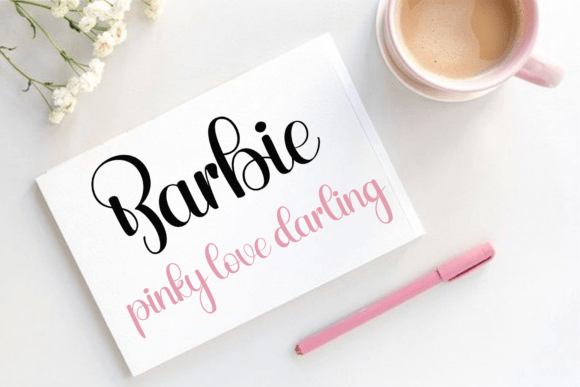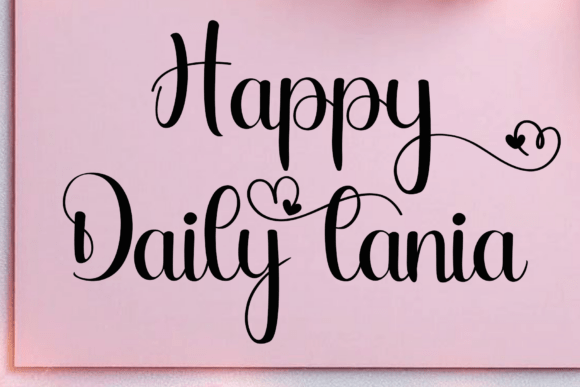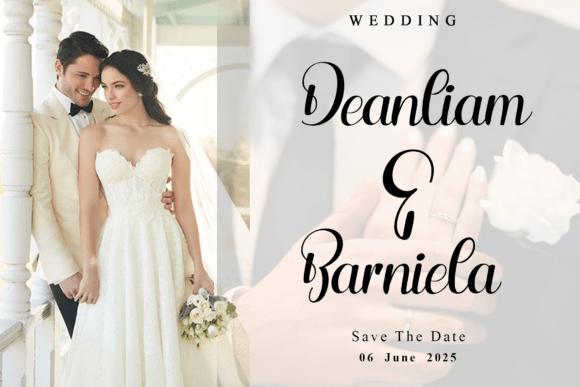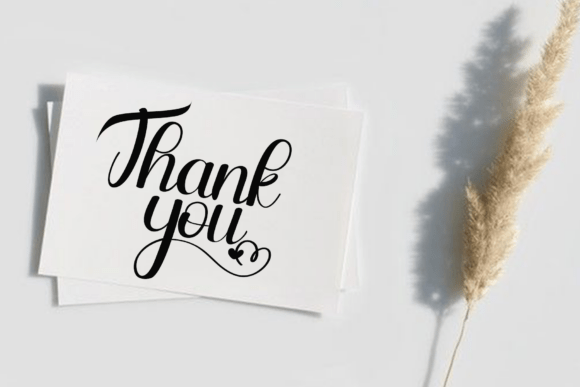
Introducing Agate Font: Elevate Your Designs with Elegance and Sophistication
Are you looking for a font that adds a touch of elegance and sophistication to your designs? Look no further than Agate Font, a beautiful handwritten font that exudes softness and grace. With its gentle strokes and feminine touch, Agate captures the essence of a handwritten signature, making it perfect for a variety of creative projects.
The Beauty of Agate Font
Agate Font is a stunning example of a handwritten font that is both elegant and refined. Its flowing strokes and delicate lines create a sense of movement and fluidity, giving your designs a dynamic and eye-catching quality. The font’s softness and subtlety make it perfect for designs that require a touch of sophistication and poise.
One of the standout features of Agate Font is its feminine touch. The font’s gentle curves and rounded edges give it a distinctly feminine feel, making it perfect for designs that require a touch of elegance and refinement. Whether you’re creating invitations, greeting cards, or personal branding materials, Agate Font is sure to add a touch of sophistication and style.
Uses for Agate Font
Agate Font is a versatile font that can be used for a wide range of creative projects. Here are just a few ideas to get you started:
- Invitations: Agate Font is perfect for creating beautiful and elegant invitations for weddings, baby showers, and other special occasions.
- Greeting Cards: Add a touch of sophistication and style to your greeting cards with Agate Font, perfect for birthdays, holidays, and other celebrations.
- Personal Branding: Use Agate Font to create a cohesive and elegant brand identity, perfect for bloggers, entrepreneurs, and small business owners.
- Stationery: Create beautiful and elegant stationery with Agate Font, perfect for writing letters, notes, and other correspondence.
Why Choose Agate Font?
So why choose Agate Font for your next design project? Here are just a few reasons:
- Unique and Elegant: Agate Font is a unique and elegant font that will add a touch of sophistication and style to your designs.
- Feminine Touch: The font’s feminine touch makes it perfect for designs that require a touch of elegance and refinement.
- Versatile: Agate Font can be used for a wide range of creative projects, from invitations and greeting cards to personal branding and stationery.
- Easy to Read: Despite its elegant and refined appearance, Agate Font is easy to read and understand, making it perfect for designs that require a clear and concise message.
Tips for Using Agate Font
Here are a few tips for using Agate Font in your designs:
- Pair with Other Fonts: Agate Font pairs well with other fonts, such as sans-serif fonts, to create a striking and elegant contrast.
- Use for Headings and Titles: Agate Font is perfect for headings and titles, adding a touch of elegance and sophistication to your designs.
- Add Decorative Elements: Consider adding decorative elements, such as ribbons or flowers, to enhance the elegant and refined appearance of Agate Font.
In conclusion, Agate Font is a beautiful and elegant handwritten font that is perfect for designers and crafters looking to add a touch of sophistication and style to their designs. With its feminine touch, flowing strokes, and delicate lines, Agate Font captures the essence of a handwritten signature, making it perfect for a wide range of creative projects. Whether you’re creating invitations, greeting cards, or personal branding materials, Agate Font is sure to elevate your designs and add a touch of timeless charm.